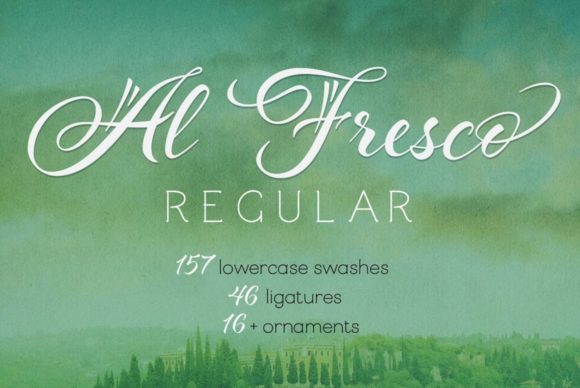
About Al Fresco Family Font
Al Fresco is a breezy, light, yet expressive script font perfect for packaging products and titling work that call for a youthful, delectable flair. Its elegance carries a subtle earthiness; its beauty is unconventional, both stylish and exuberant. This font is PUA encoded, which means you can access all of the glyphs and swashes with ease!